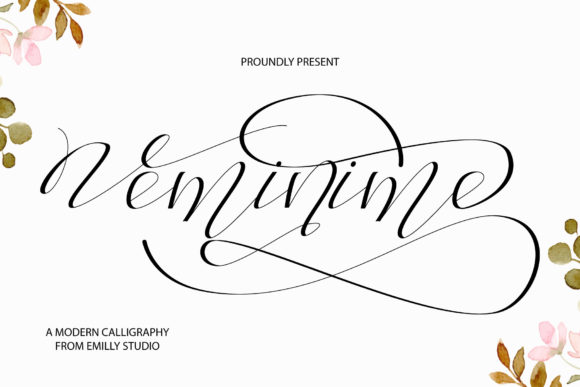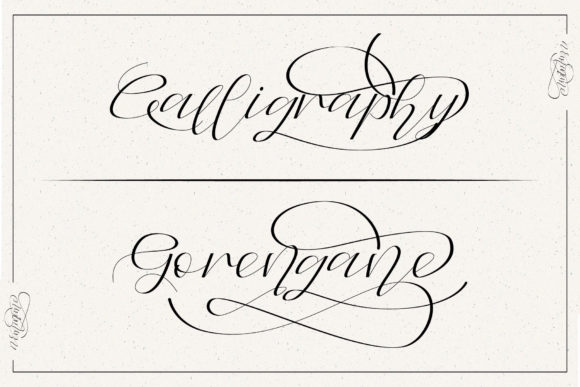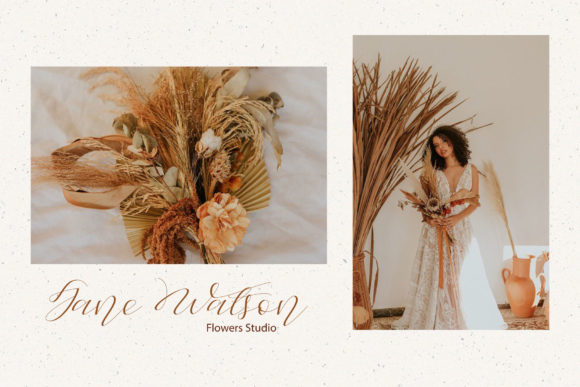
Veminime Font
About Veminime Font
Veminime is a distinct graceful script font. Fall for its ravishing style and use it to create gorgeous designs. This font is PUA encoded which means you can access all glyphs and swashes with ease!